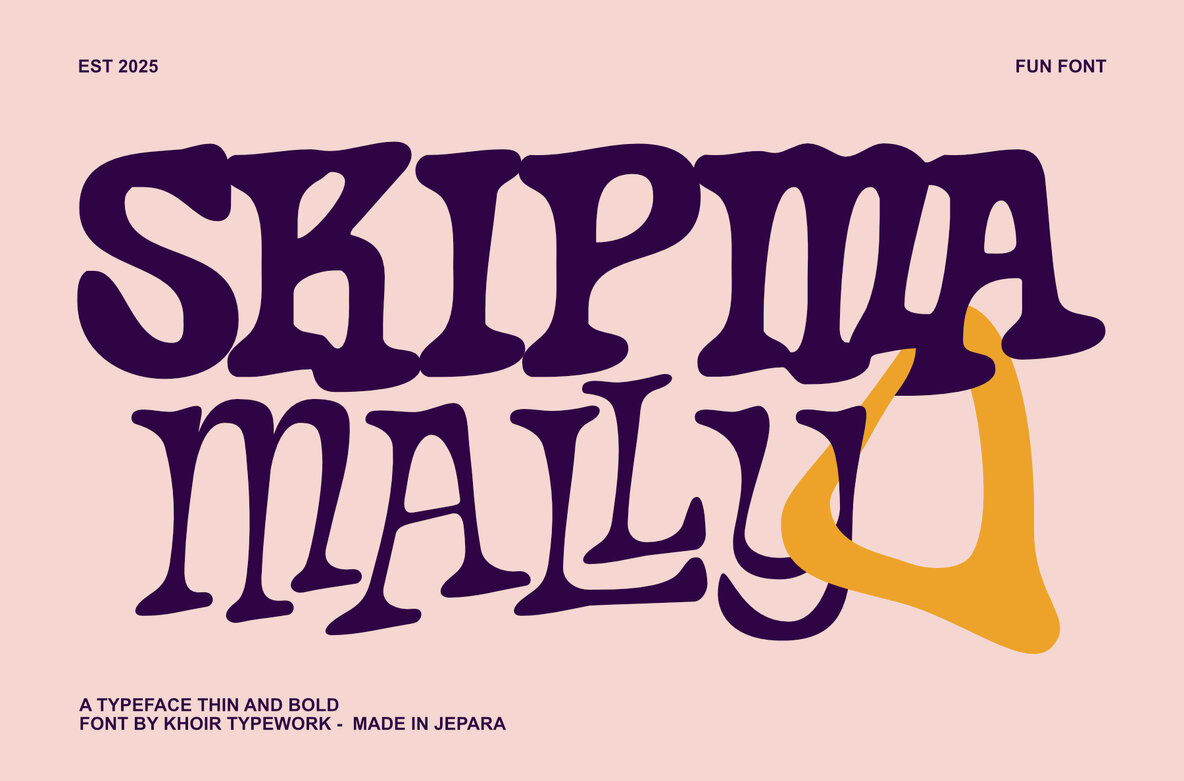
Skipma Mally Font
Dynamic Typeface: A Harmonious Chaos
This unique typeface offers a playful yet coherent reading experience. Its random layout is thoughtfully designed to ensure harmony while featuring special ligatures in select letters for added distinction. Available in two styles—Regular and Bold—this font brings versatility to any project. It's ideal for a variety of applications, including logos, packaging designs, business cards, posters, and branding ventures.
Features
• Uppercase letters
• Includes ligatures